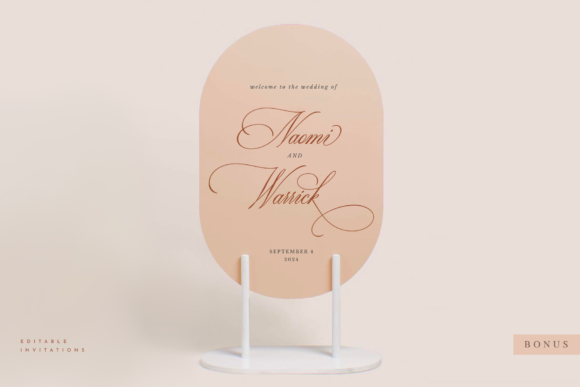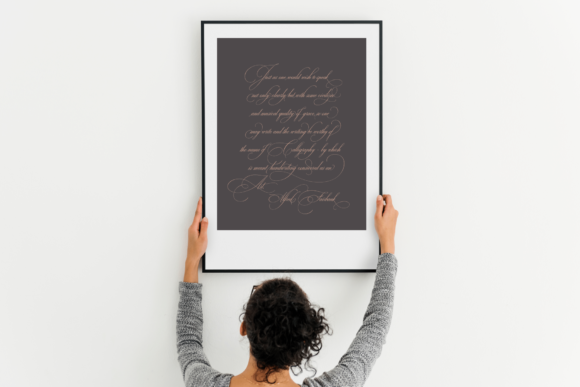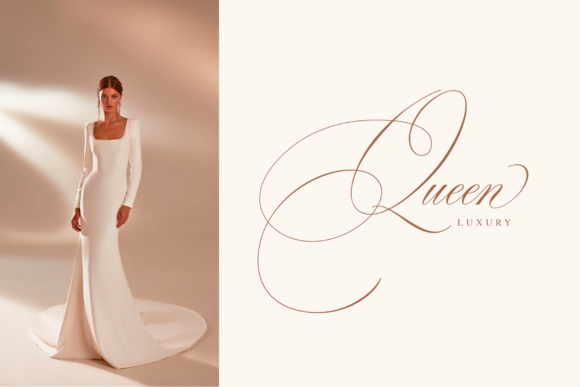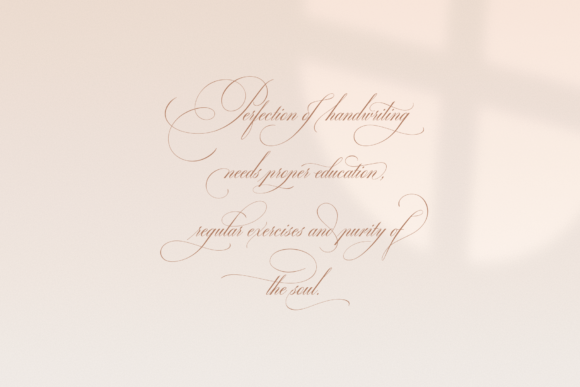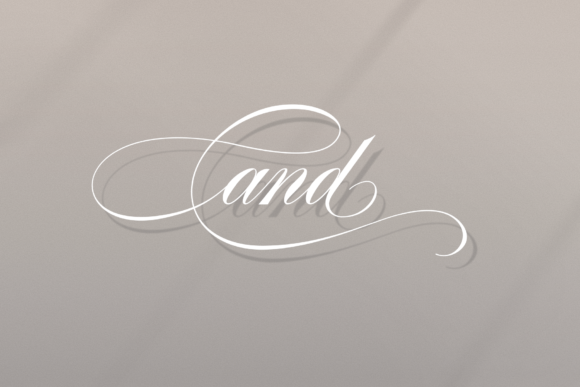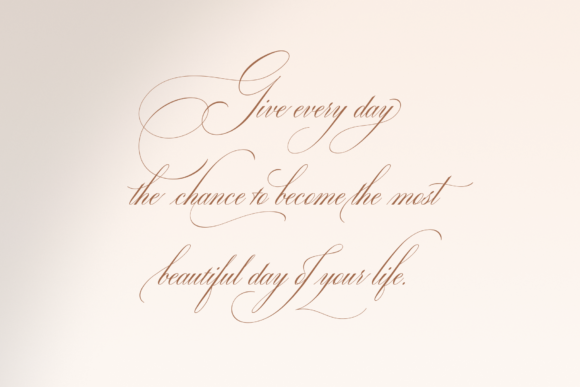
Introduction to Ecatherina Font
Have you ever been stuck on a design project, pouring over fonts and styles, only to have it all come together in a flash of inspiration? For designers, those moments of clarity are what make all the hard work worth it. And when it comes to creating something truly special, a beautiful font can be the perfect starting point.
Enter Ecatherina Font, a stunning script font that’s sure to captivate your audience. With its elegant, thin lines and delicate curves, this font is perfect for everything from wedding invitations to social media posts. And with its PUA encoding, you’ll have access to all the glyphs and swashes you need to create truly high-quality designs.
Key Features of Ecatherina Font
- Unique, elegant script font perfect for adding a touch of sophistication to your designs.
- Perfect for use in a variety of creative projects, including invitations, wedding designs, and more.
Honest Review: Ecatherina Font
I recently came across the Ecatherina Font and was excited to dive in and see what it had to offer. As a designer, I’m always on the lookout for high-quality design resources to help elevate my creative projects.
One of the things that stood out to me about the Ecatherina Font was its beautiful, elegant aesthetic. The font is perfect for projects that require a touch of sophistication and whimsy. It’s versatile enough to be used in a variety of contexts, from branding and marketing materials to digital products and print materials.
Here are some of the things that I like about the Ecatherina Font:
- ✨ Beautiful, elegant aesthetic
- ✨ Versatile and suitable for a range of projects
- ✨ Can be used on a transparent background, giving it a clean and modern look
- ⚠️ Limited character set – may not be suitable for projects that require a wide range of special characters
- ⚠️ May not be as readable on smaller screens or in low-light conditions
Overall, I’m impressed with the Ecatherina Font and would recommend it to designers looking for a high-quality, free font to add to their design arsenal. While it may have some limitations, its beautiful aesthetic and versatility make it a great choice for a variety of creative projects.
The Ecatherina Font is ideal for various creative projects, including branding, packaging, and advertising. Its high-quality design makes it a great choice for professional and personal projects alike.